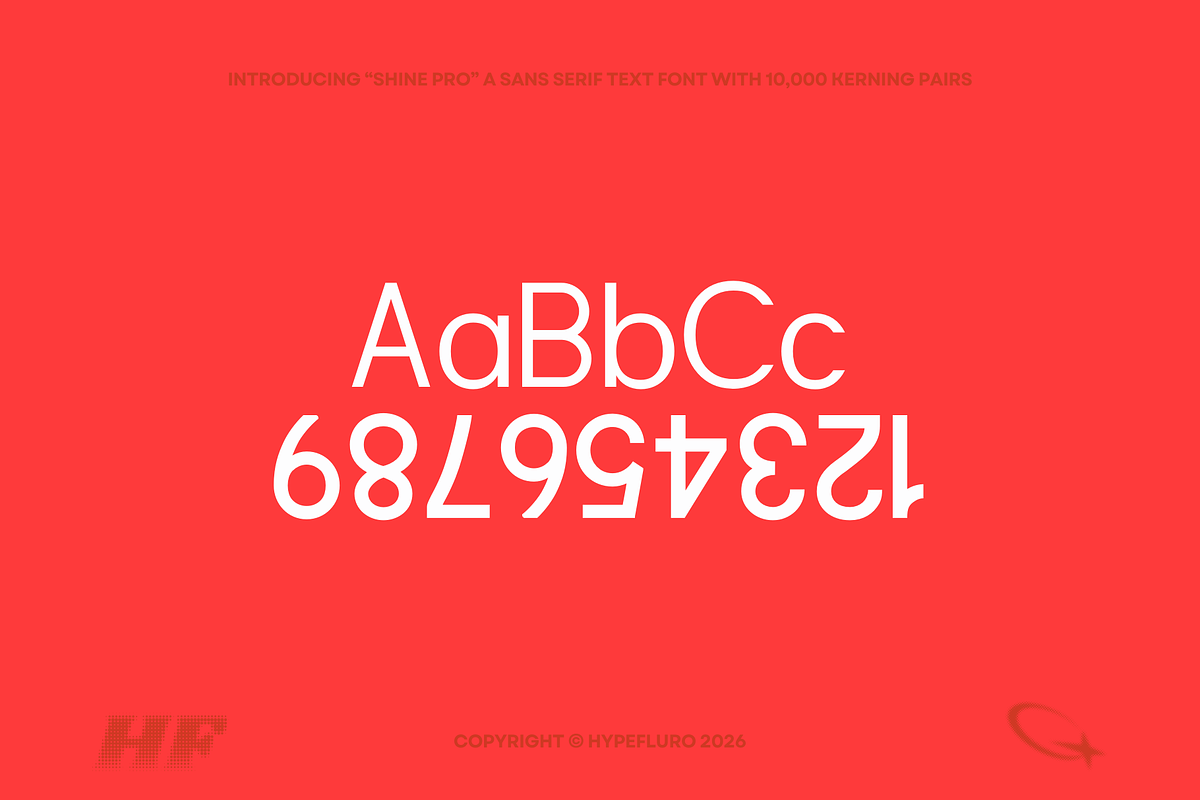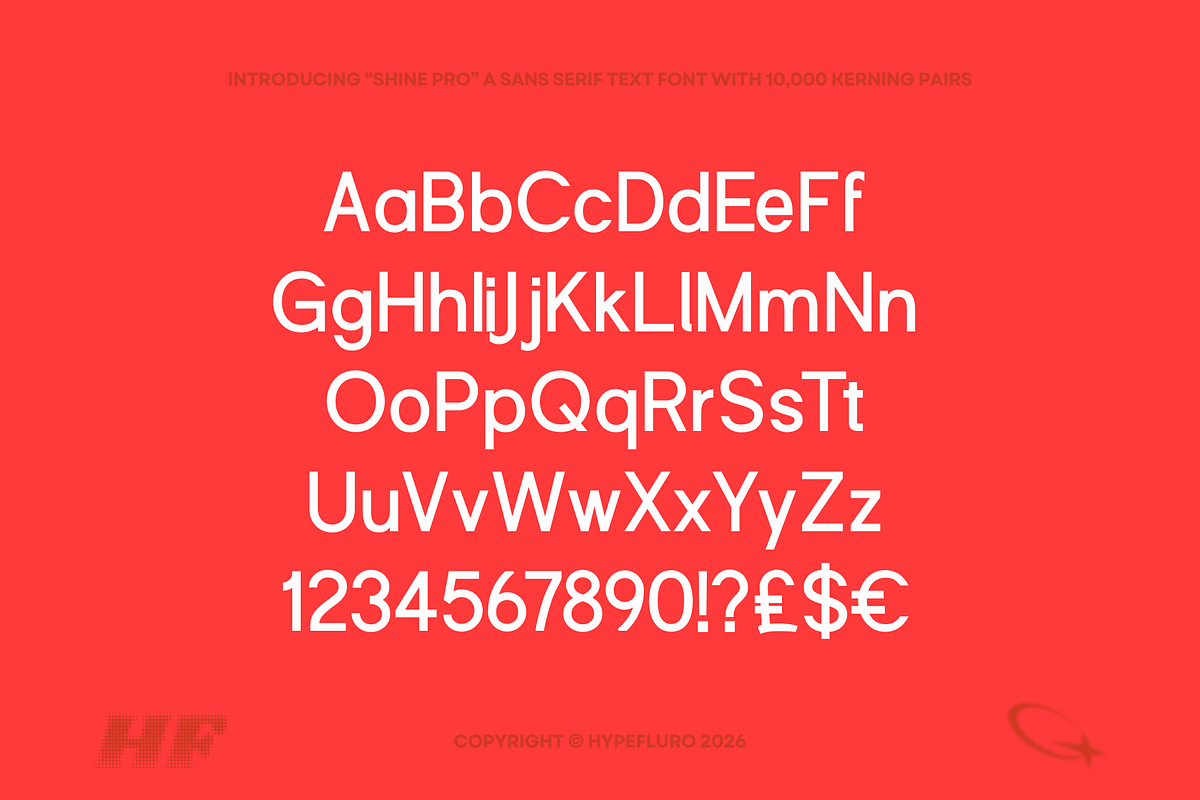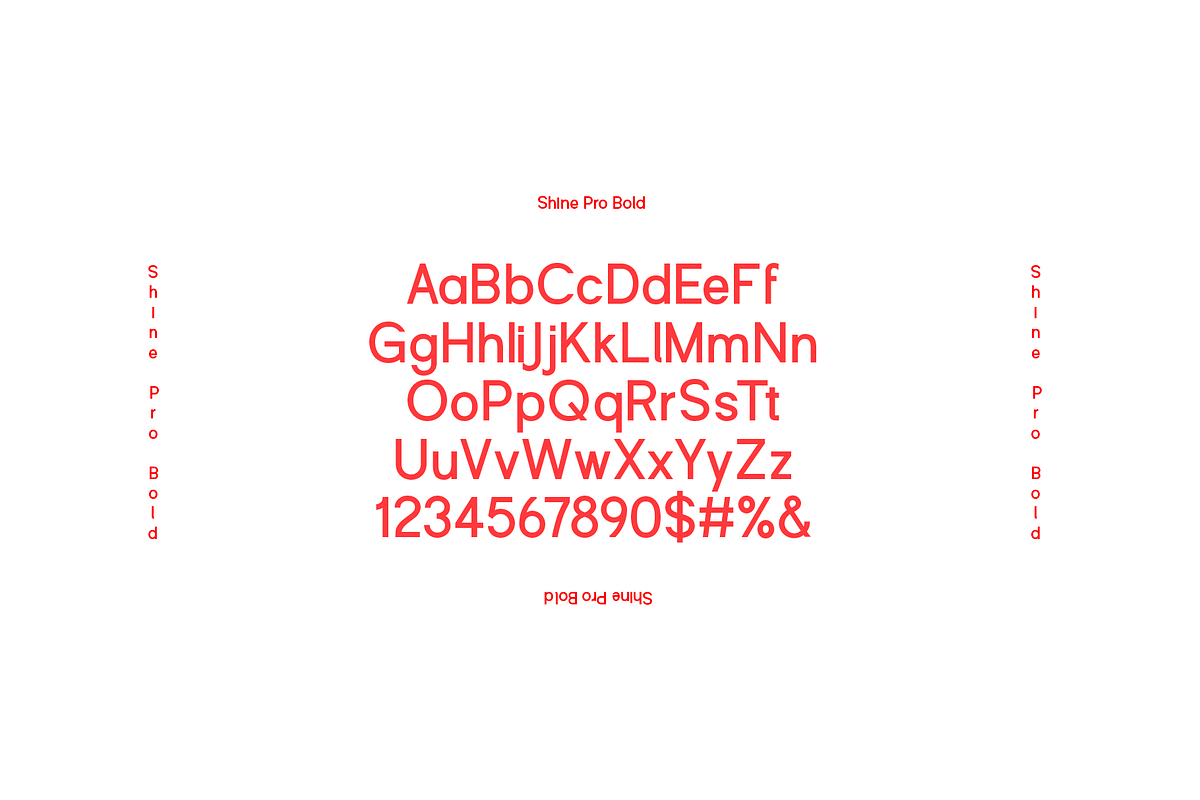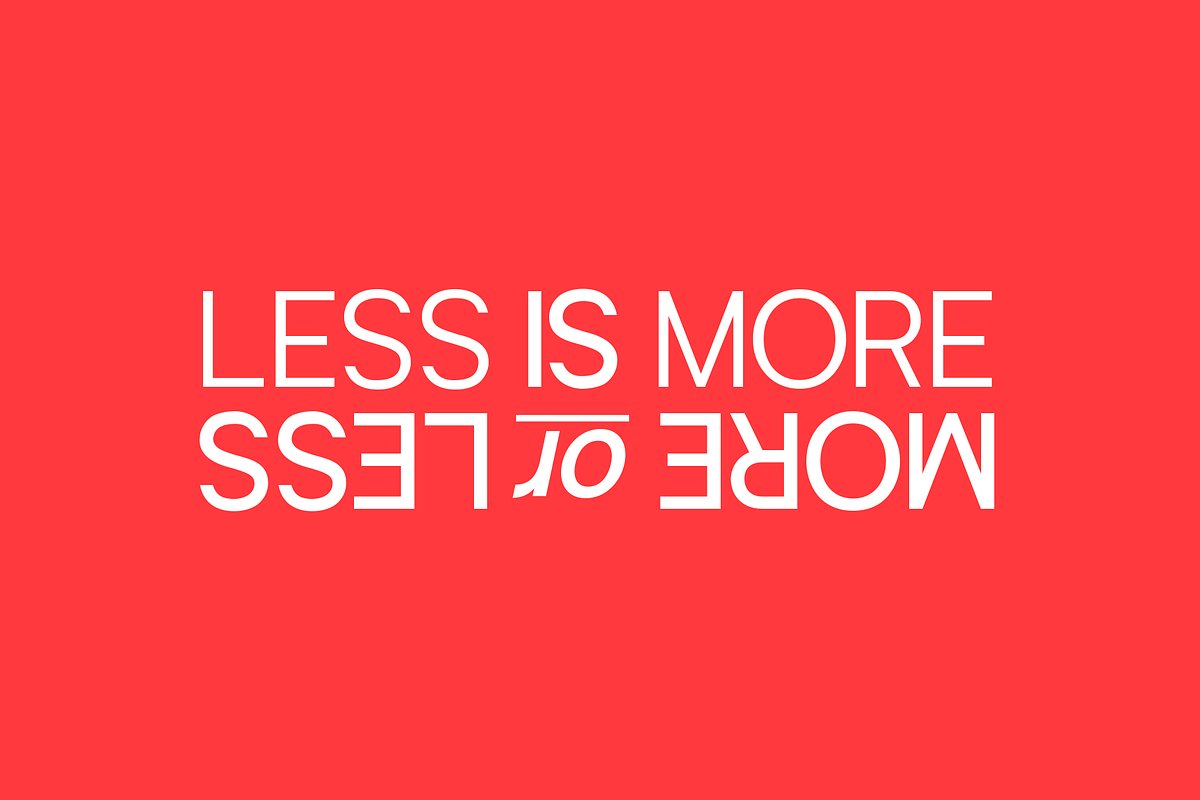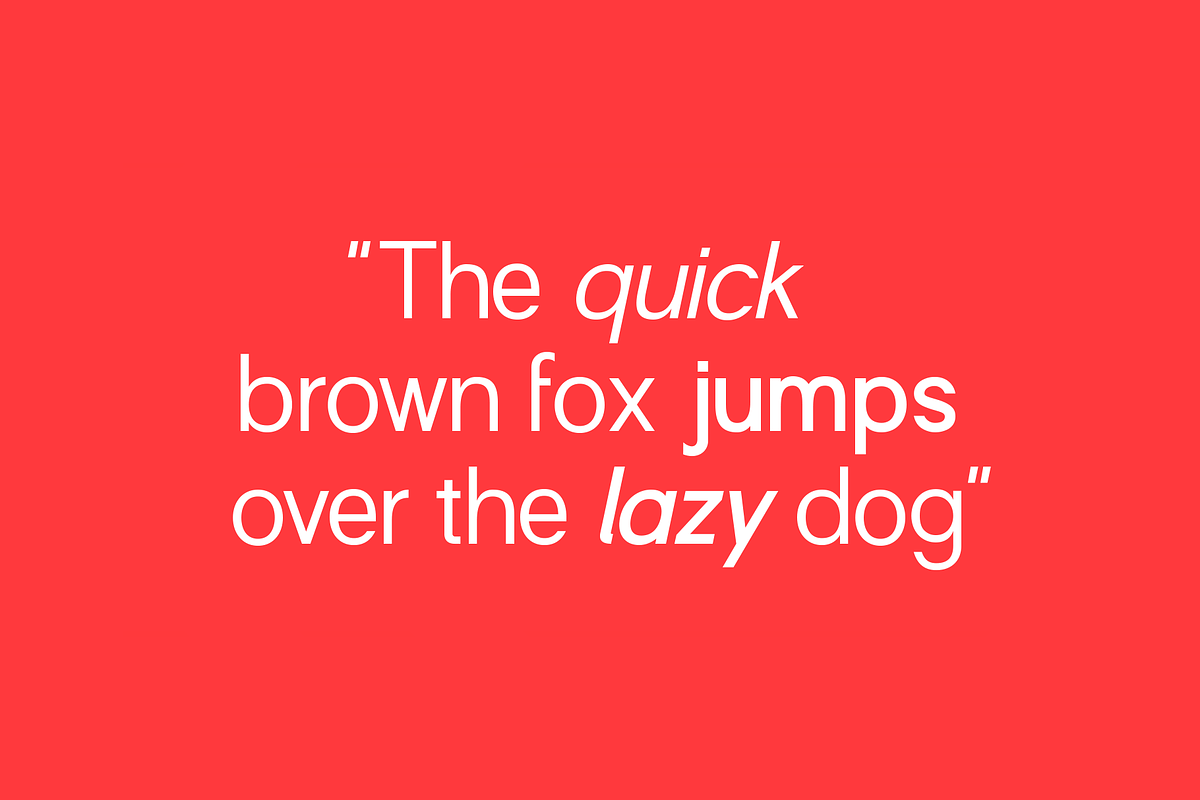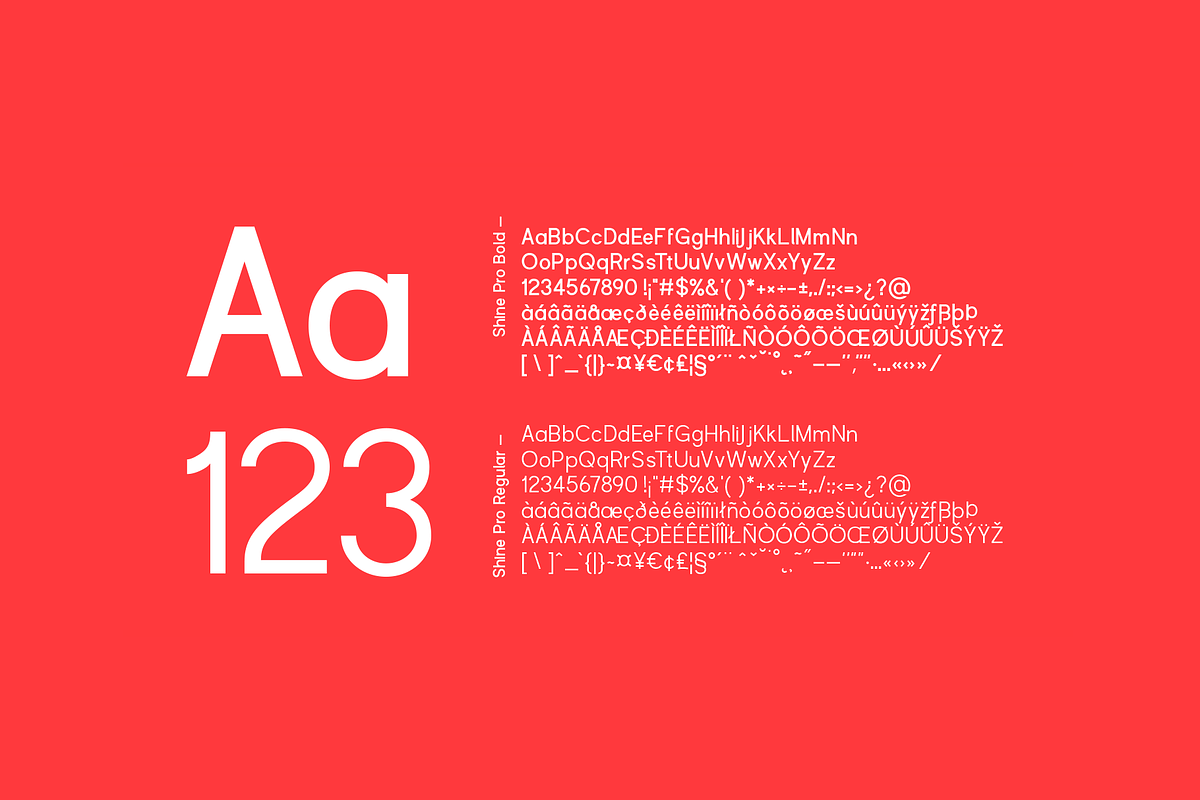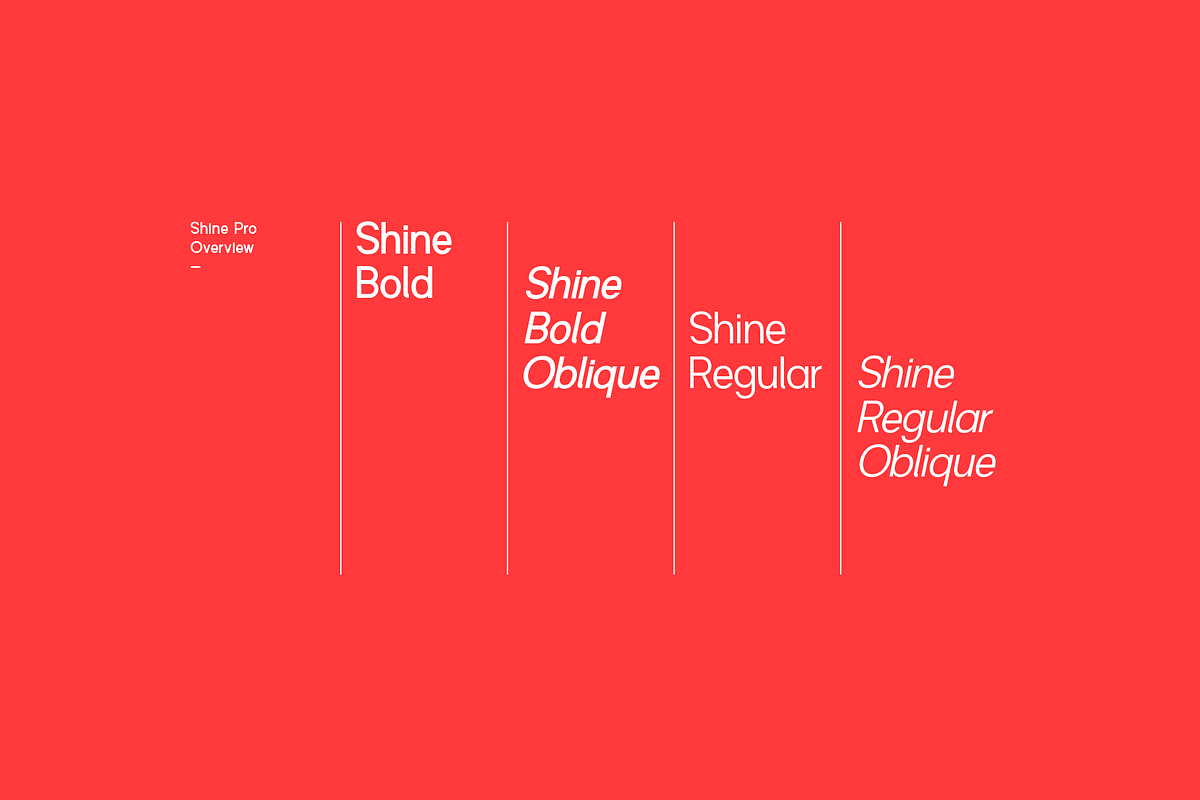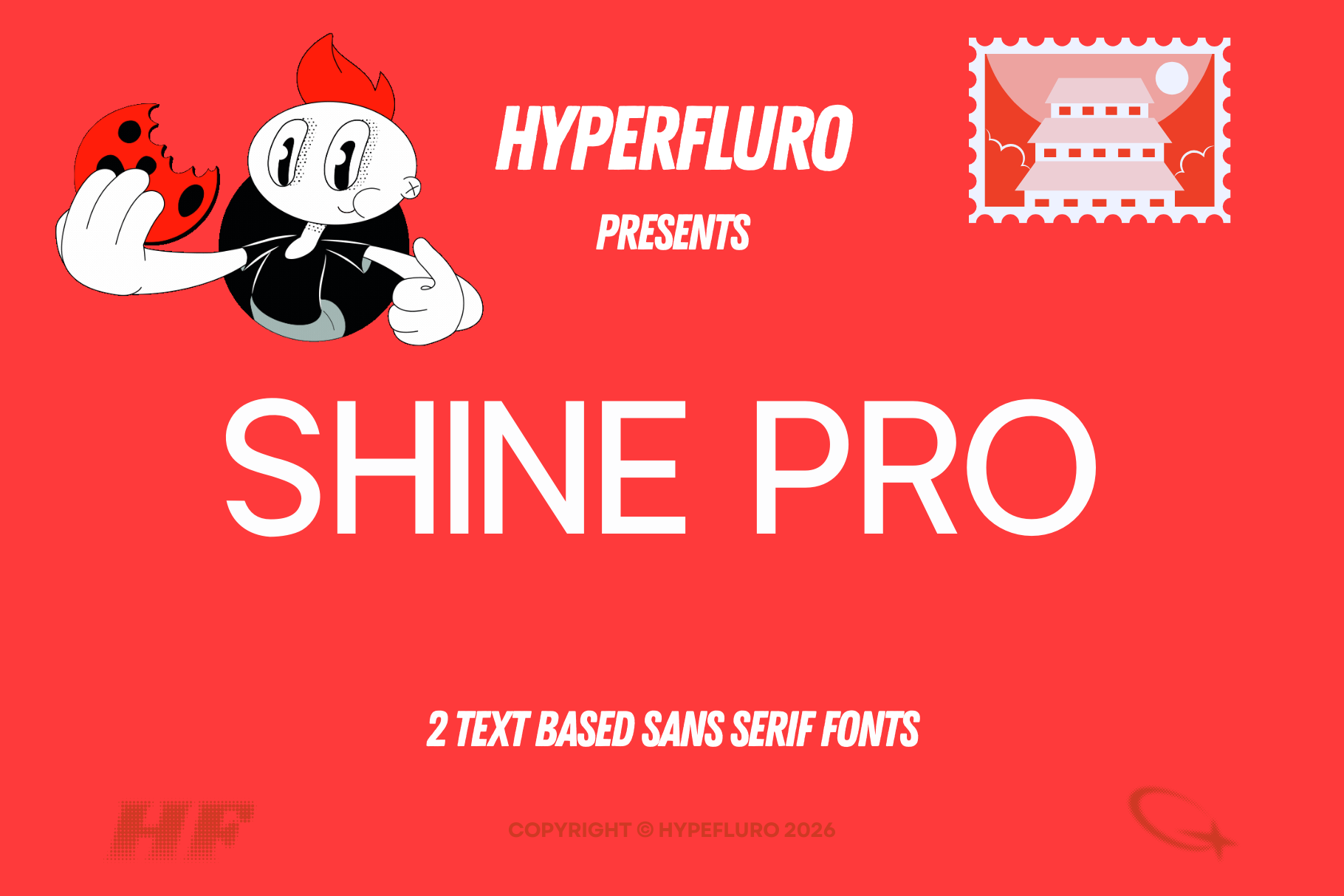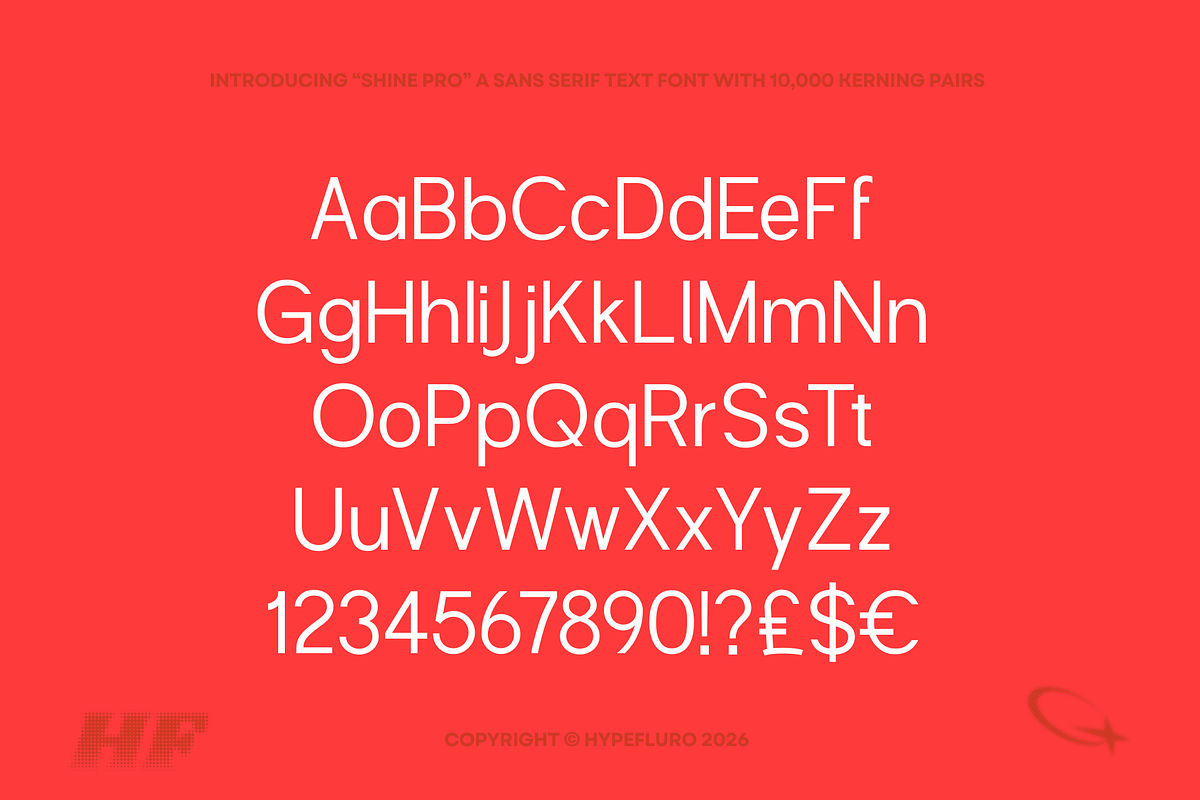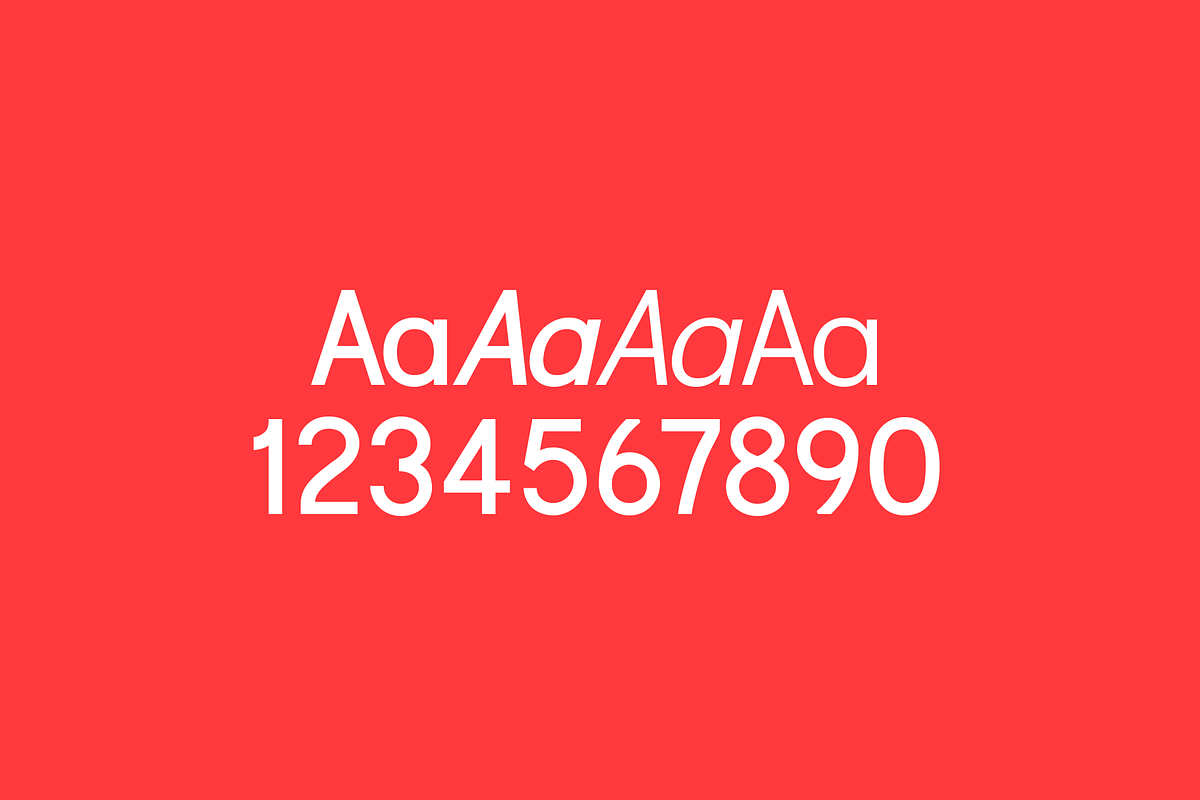
Shine Pro - 4 Text Sans-Serif Fonts
Meet Shine Pro the refined sans-serif that knows exactly what you need. No fuss, no confusion, no over-the-top theatrics. Shine Pro delivers clean, precise letterforms with a quiet confidence that makes your words shine.
The Regular weight is understated and poised the kind of charm that wins you over without trying too hard. Meanwhile, the Bold weight steps up with presence, commanding attention without breaking a sweat.
But Shine Pro isn’t just about good looks. With a staggering 10,000 kerning pairs and extensive language support, including Cyrillic, this typeface is designed to meet the demands of any project. Inspired by timeless typographic traditions yet finished with a contemporary touch, Shine Pro is your new go-to for clear, reliable, and beautifully crafted text.